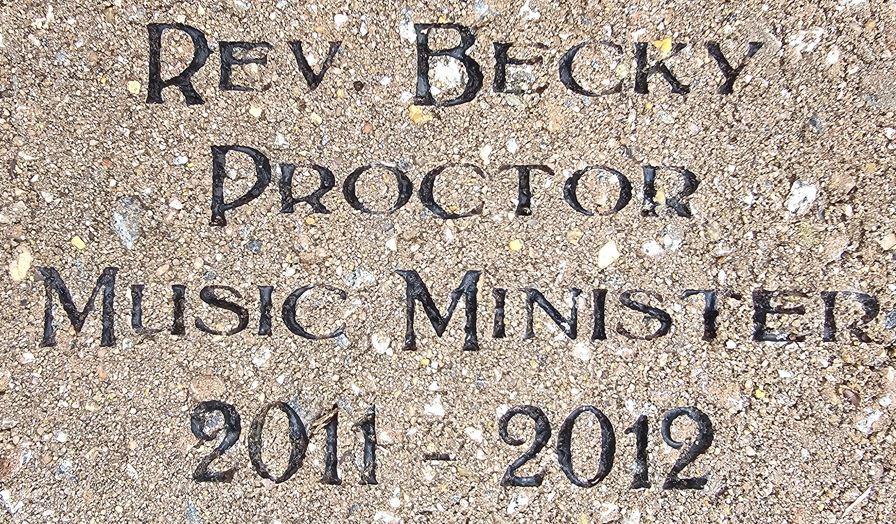
DO you know what this font is, it’s driving me crazy
I have no idea what this font is, I feel like I’ve seen it before though. Tried Identifont and Whatthefont with no match.
Brick Font
Hello, this is a free font named Bolton Titling that appears to have been–at least in part–inspired by the commercially available font Windsor.